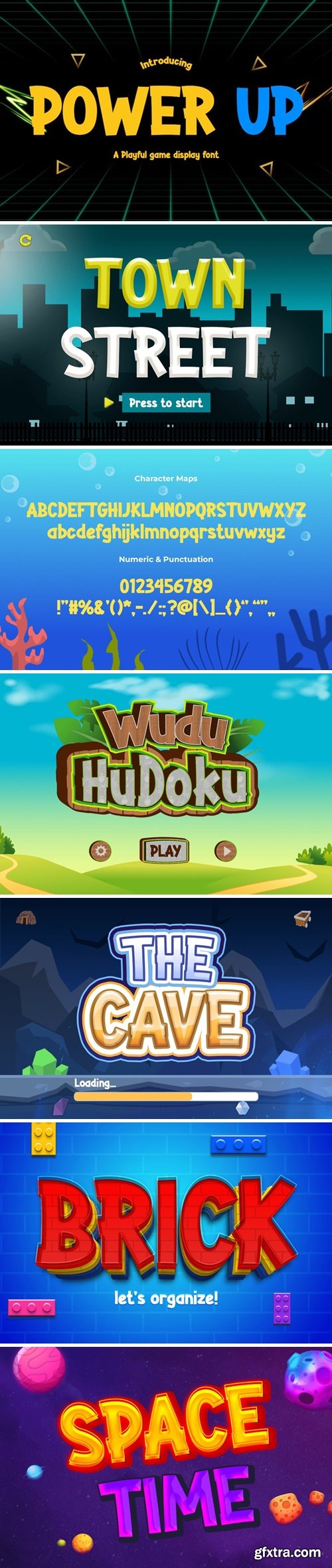
Power Up - Unleash the Fun Gaming Experience Font
Power Up is a dynamic and energetic font that brings gaming excitement to your fingertips. With its playful style and captivating aesthetics, this font is perfect for many projects. From gaming designs to book covers, children's books, comics, posters, packaging, merchandise, and logotypes, Power Up adds a sense of fun and adventure. Let the vibrant letterforms of Power Up ignite your creativity and transport your audience into a world of virtual excitement. Whether you're designing for gamers or simply want to infuse your project with a touch of playfulness, Power Up is the ultimate choice. Prepare to power up your designs and embark on an unforgettable gaming experience!